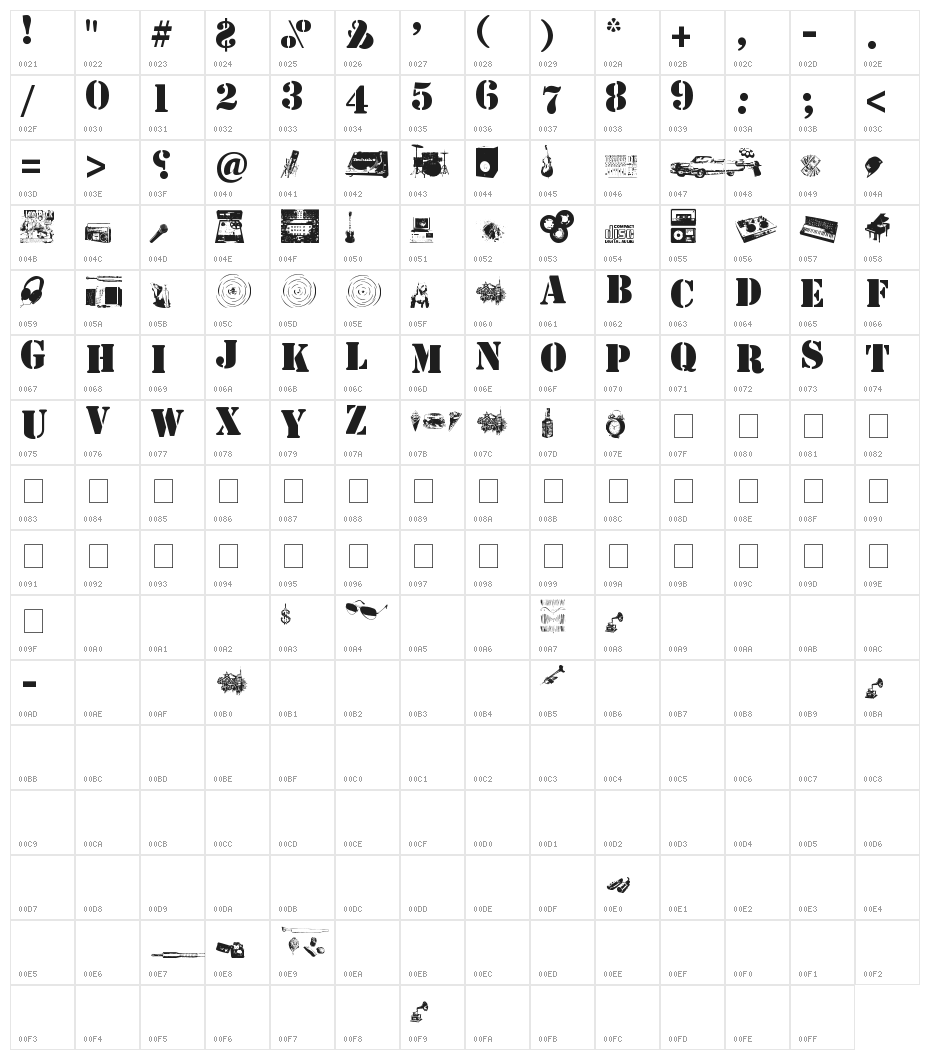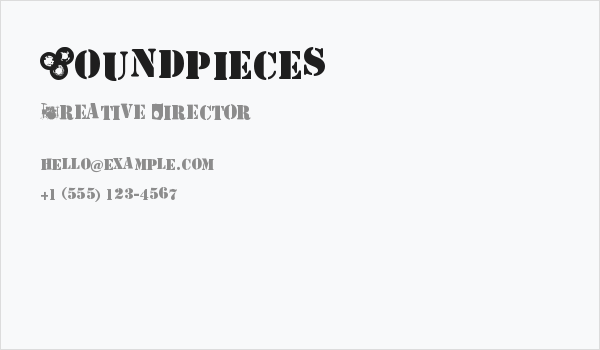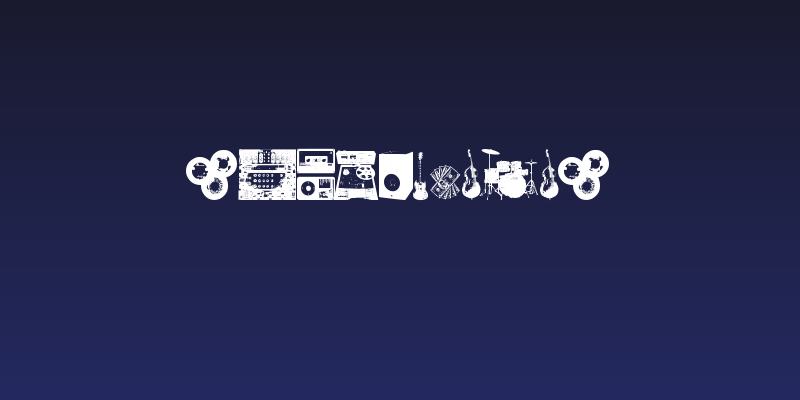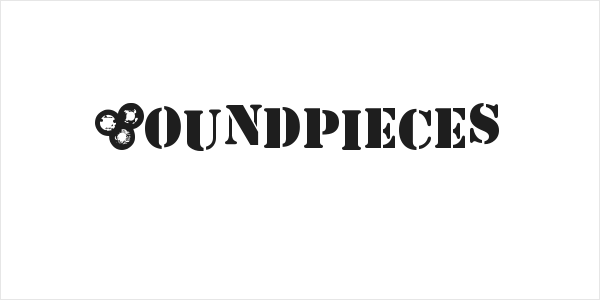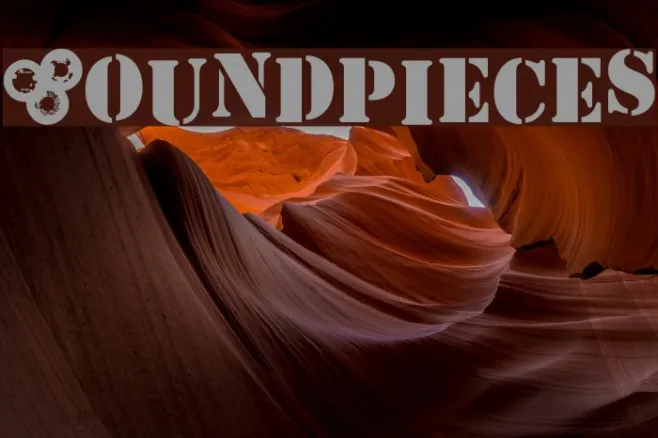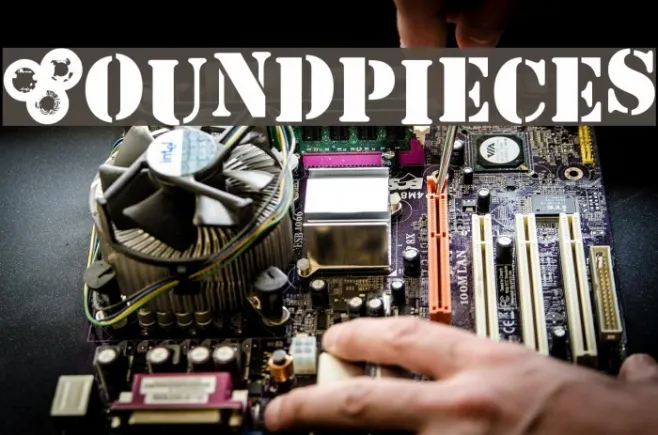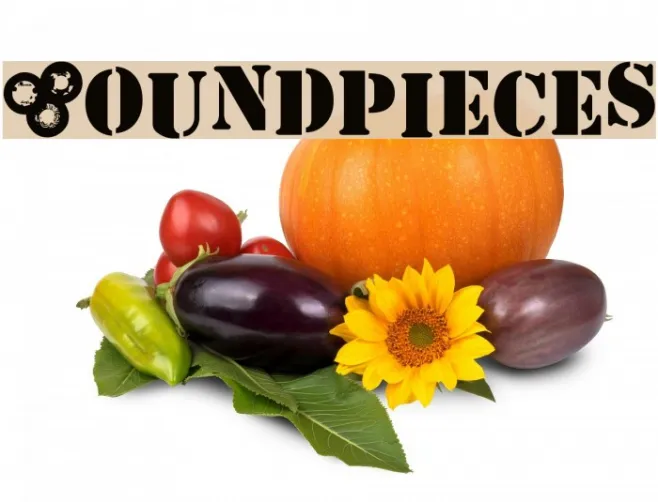
Soundpieces Font
Soundpieces Description
This font features a bold and impactful stencil design, characterized by its strong geometric shapes and distinct cut-out sections. The uppercase letters are particularly striking, with wide, blocky forms that convey a sense of strength and authority. The numbers and special characters maintain this bold aesthetic, ensuring consistency across all elements. The font's unique style makes it ideal for projects that require a modern and edgy look, such as urban-themed designs or music-related graphics. Its high contrast and wide character spacing enhance readability, making it suitable for headlines and titles.
SOUNDPIECES UPPERCASE
SOUNDPIECES LOWERCASE
SOUNDPIECES OTHER CHARS
| Proposed Projects | Ideal for urban-themed designs, music-related graphics, posters, and bold headlines. |